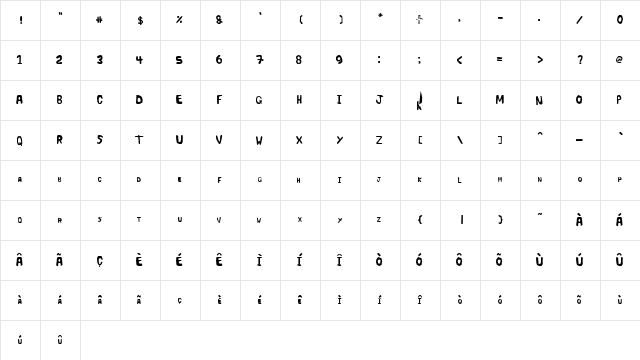
Serta 1
Design Context for Serta Typeface
Serta takes a measured approach to typography — its balanced proportions and neutral character make it a reliable workhorse for both digital and print work.